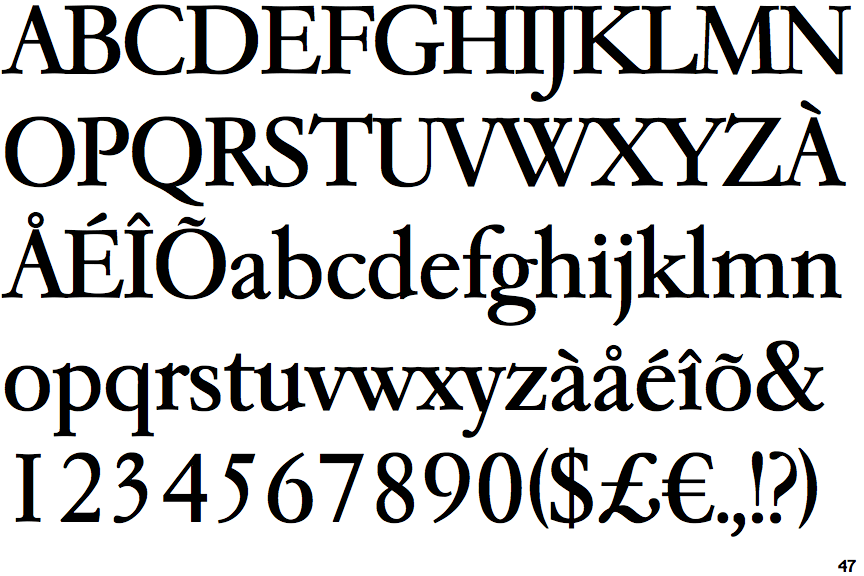
Garamond FB Text
Digitized from a Garamond designed by type historian Douglas Crawford McMurtrie and type designer Robert Hunter Middleton at Ludlow in 1929.
One of a pair of Optical sizes with the font Garamond FB Display.
Designers: Douglas Crawford McMurtrie, Robert Hunter Middleton and Jill Pichotta Year: 1992-2000 Publisher: Font Bureau Examples: Traveler magazine |